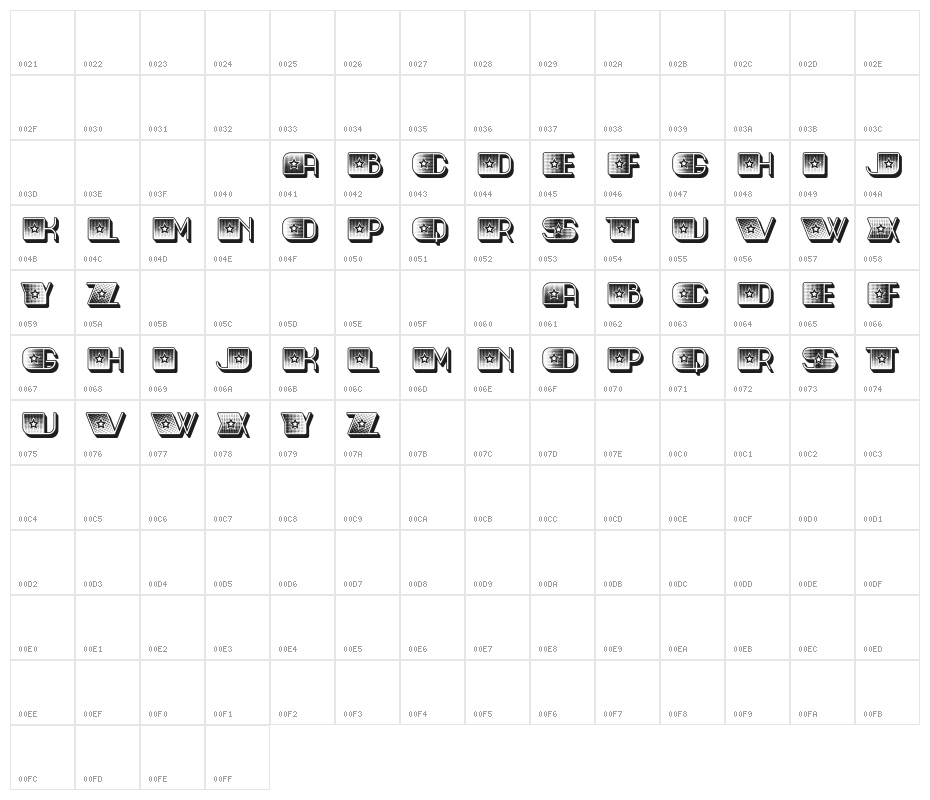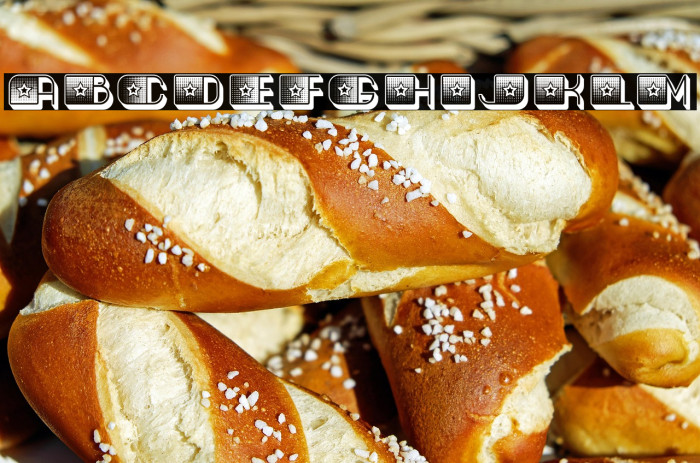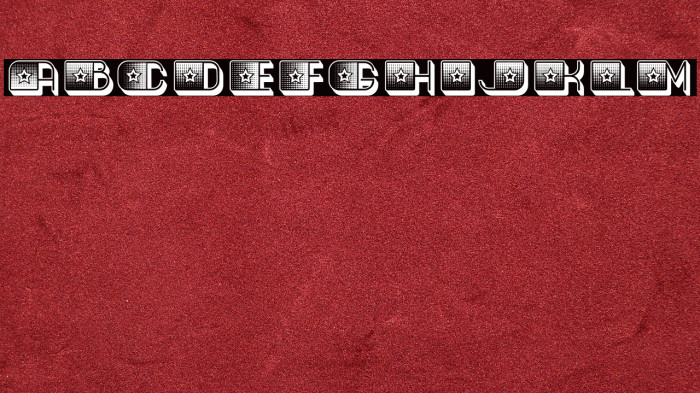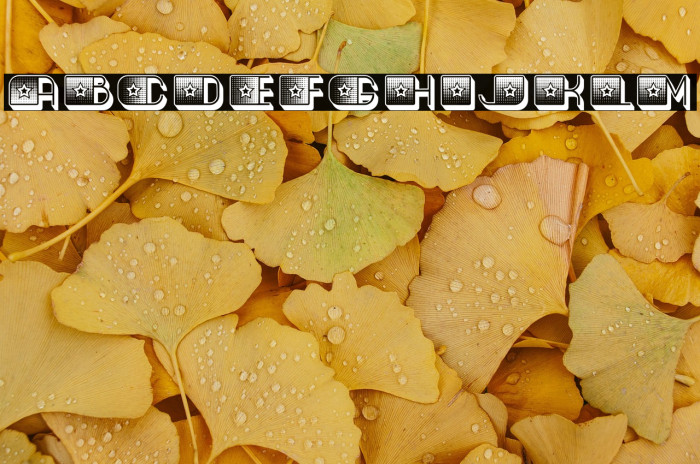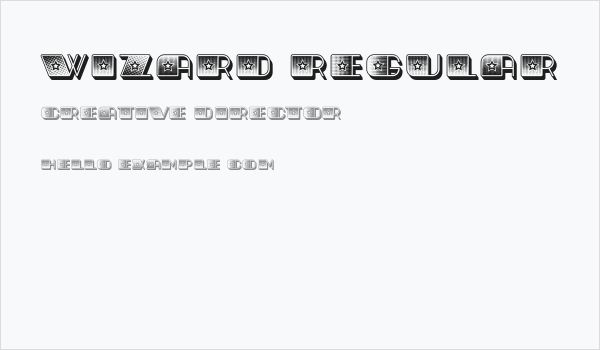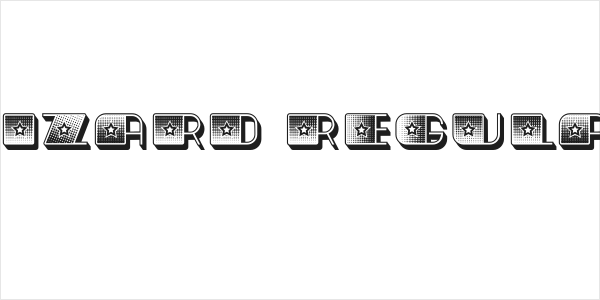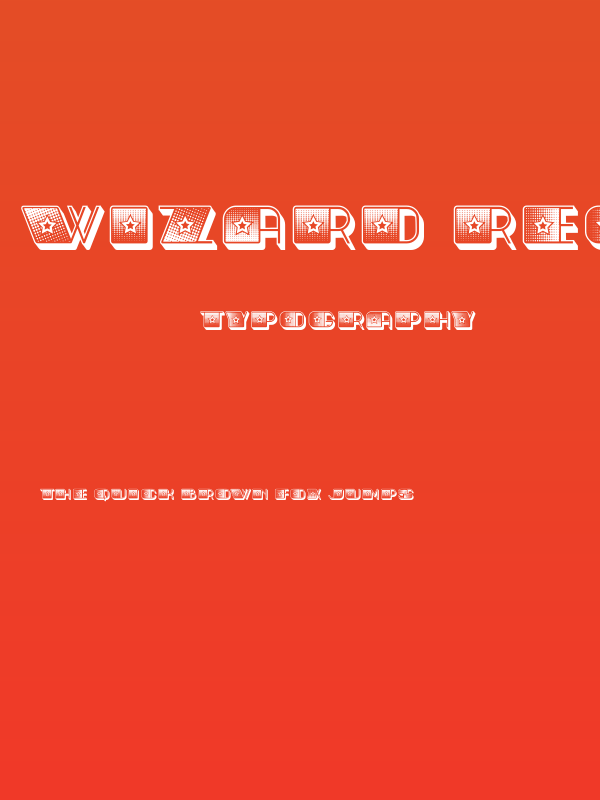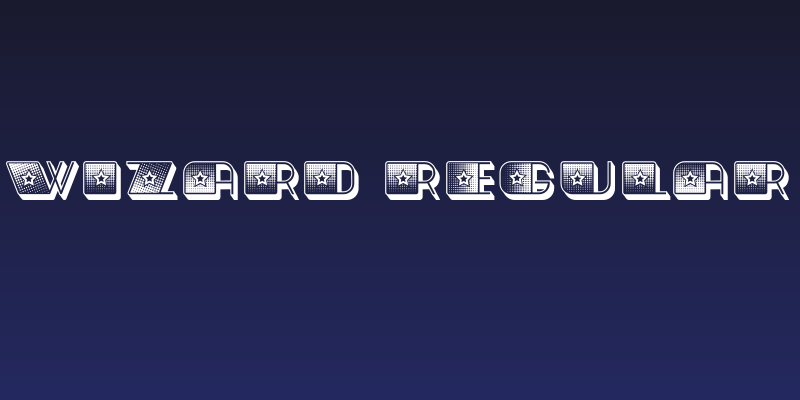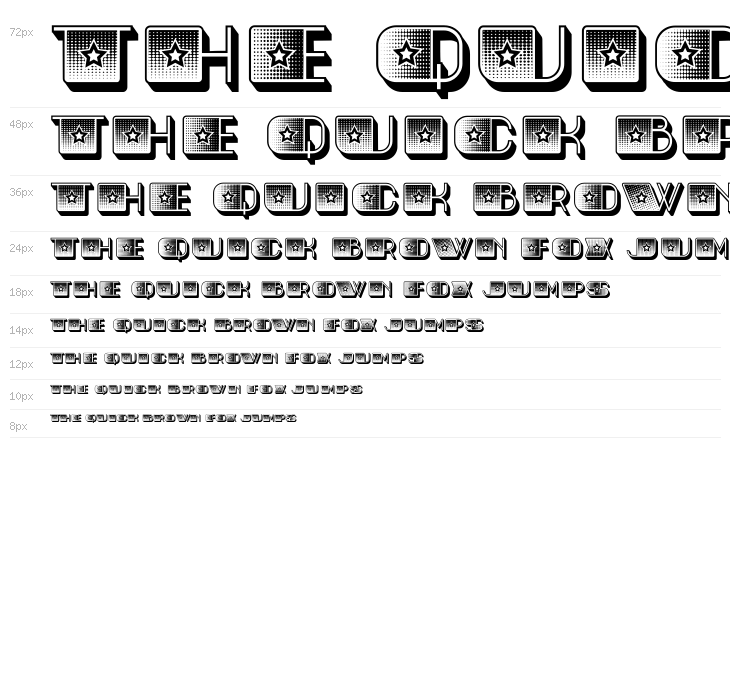
Wizard Regular Font
Wizard Regular Description
This font features a bold, decorative style with a unique star pattern embedded within each character. The letters are outlined with a thick black border, giving them a three-dimensional appearance. The interior of each character is filled with a dotted texture, enhancing the visual interest. The overall design is playful and eye-catching, making it suitable for creative and whimsical projects. The font maintains consistent proportions across all characters, ensuring readability while maintaining its decorative flair.
Proposed ProjectsIdeal for children's book covers, party invitations, posters, and any project requiring a fun and whimsical touch.